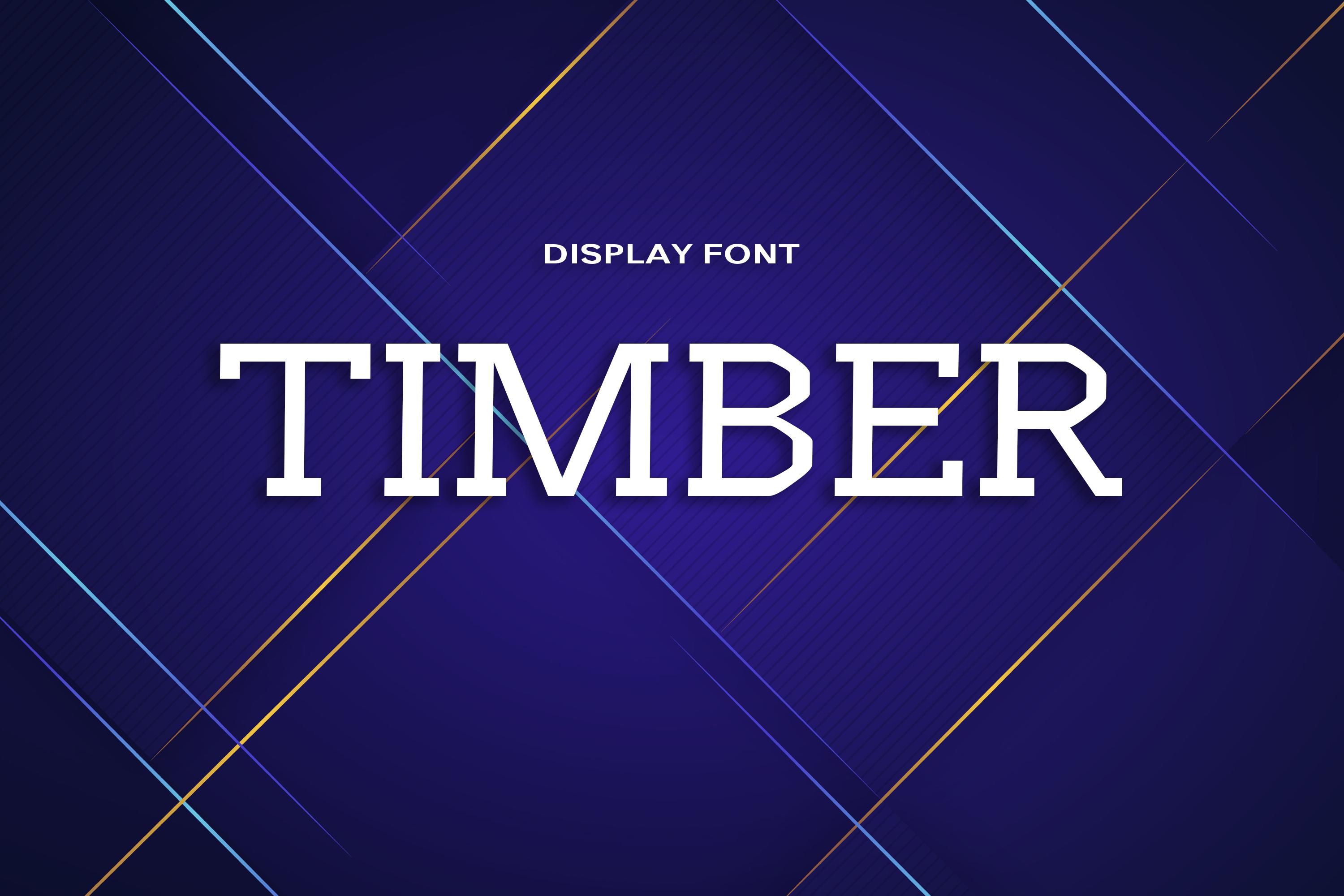
Timber is a strong lettered and geometrically shaped display font. It looks perfect on branding projects, striking posters, as well as web or app development.